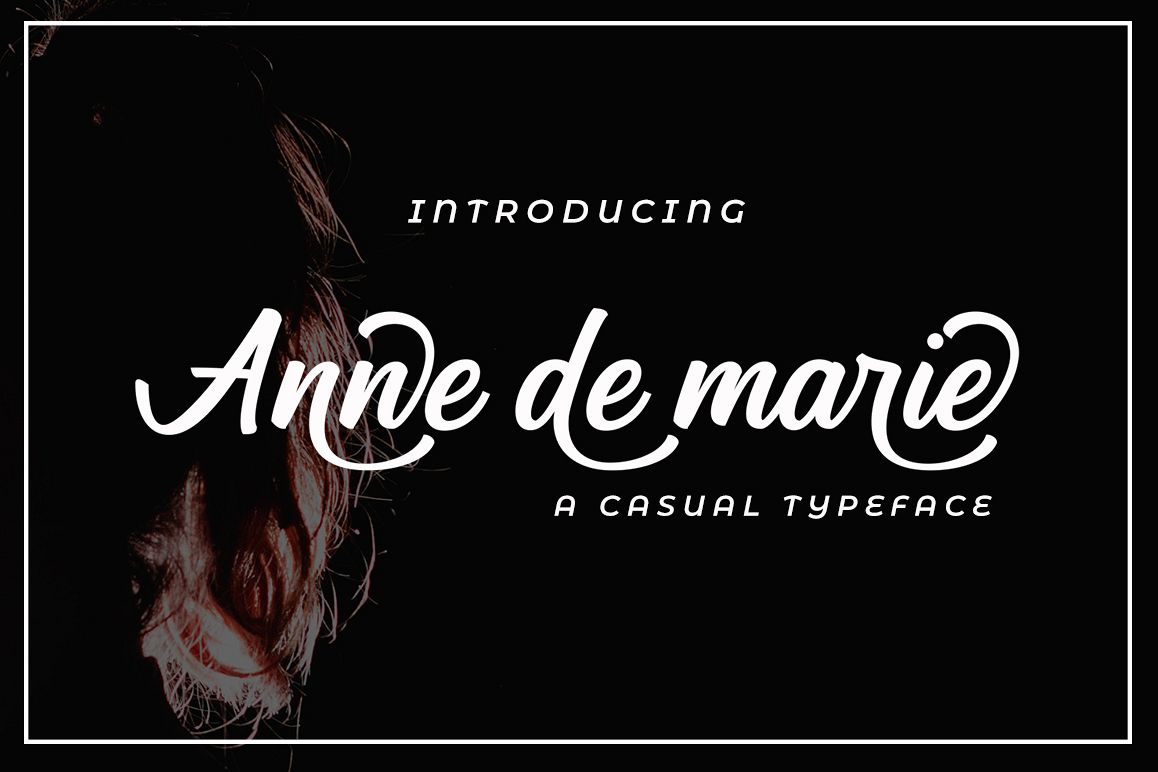
Anne de marie
Presented ... Anne de marie
Anne de marie offers a wide range of options for creating logos, titles and titles. It is suitable for books, editorials, packaging, advertising, brand imaging and more.
Anne de marie includes Collection of Uppercase, Stylistic, Latin Based Language Support, Numbers and Punctuation. Set Stylistic is available in Lowercase.